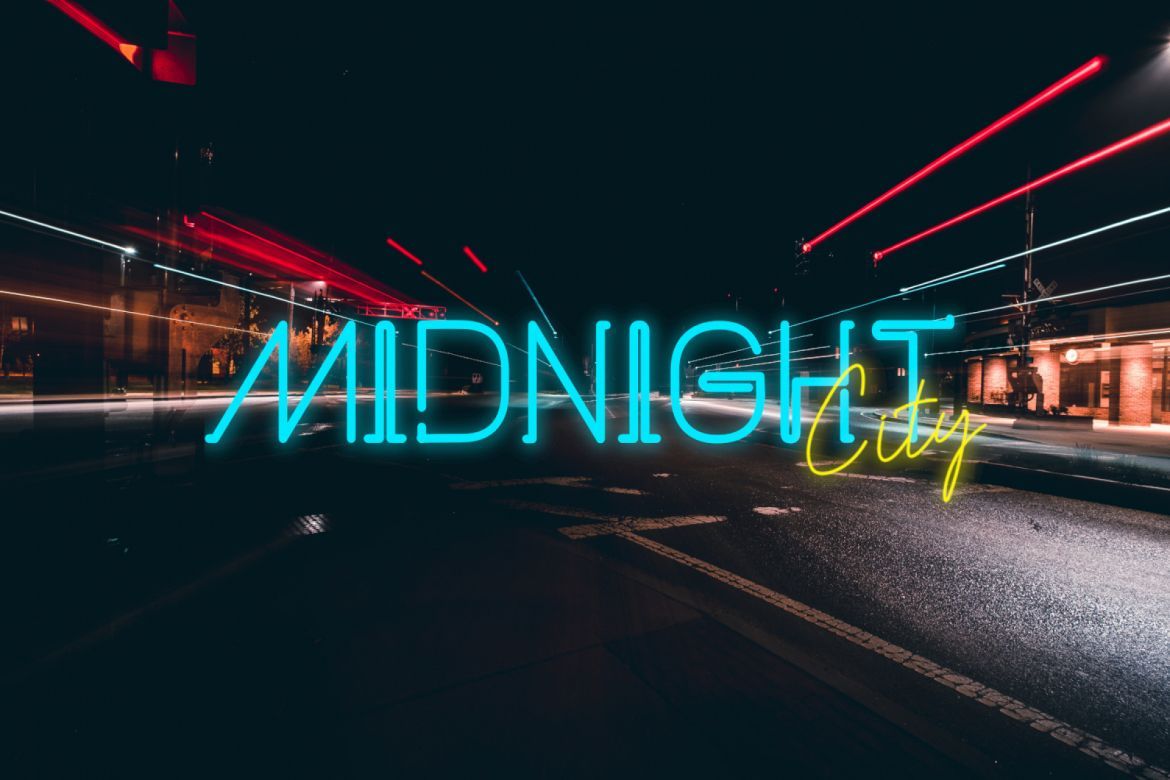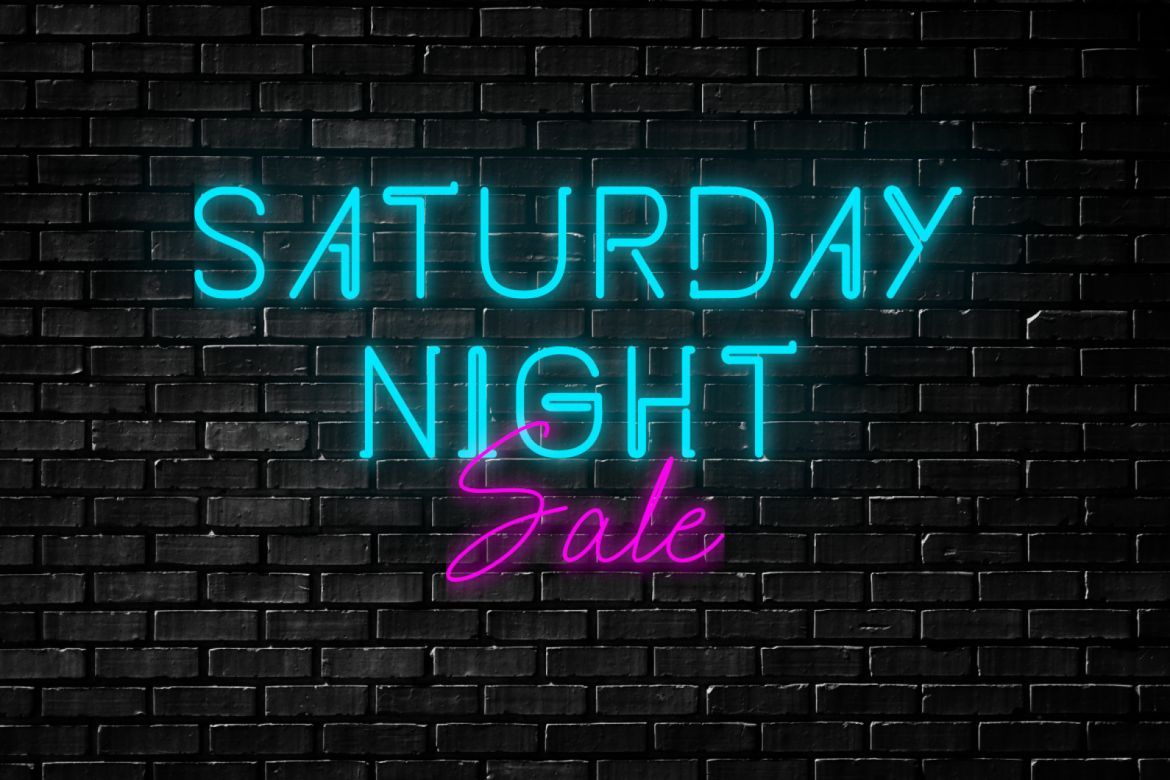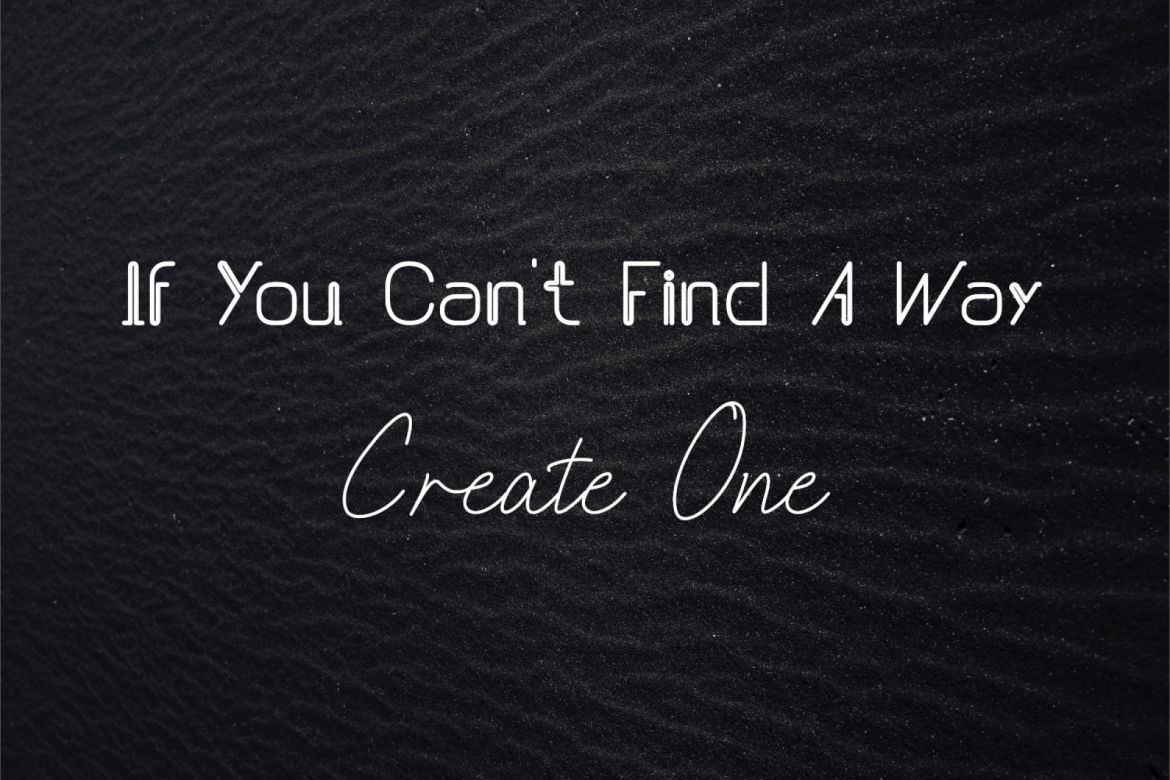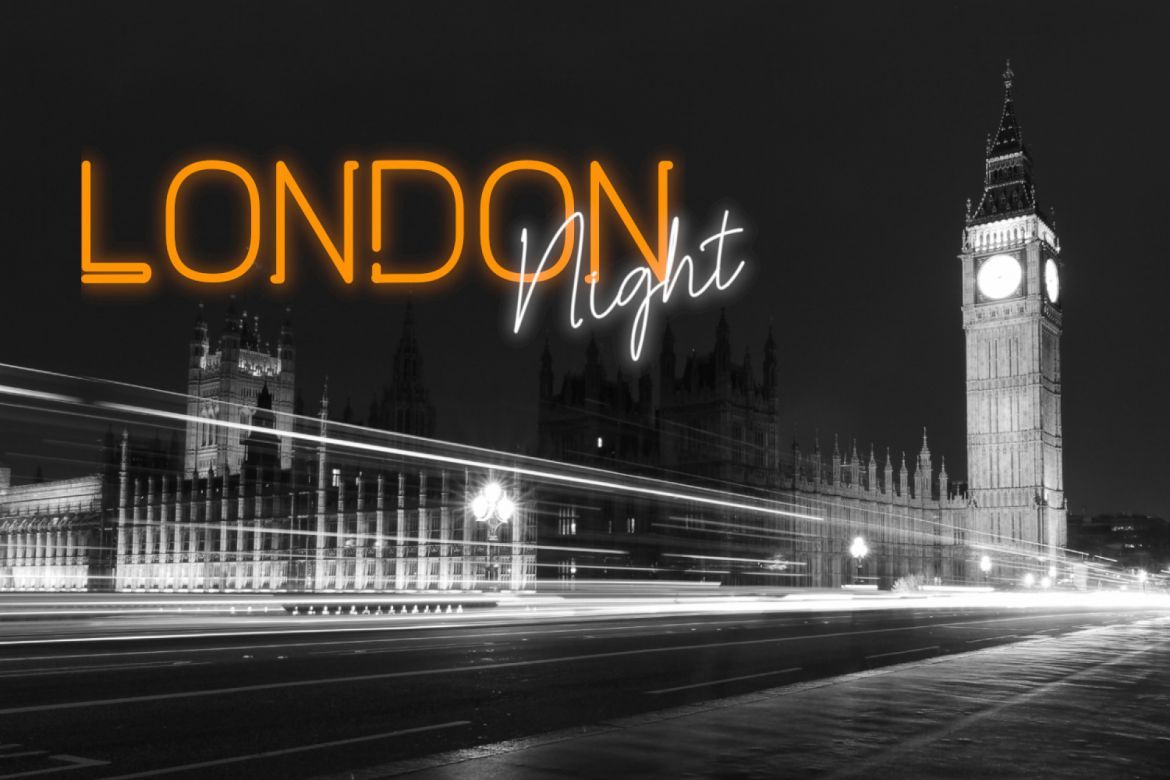
NEONCITY - Neon Style Font
Hello, I will introduce my new font Neoncity is a bold and fresh display font with a vintage feel. Inspired by the flashing 80’s, it will add a distinct look to any design project. It is perfect for branding, posters, event invites, quote, blog posts, social media, and more!